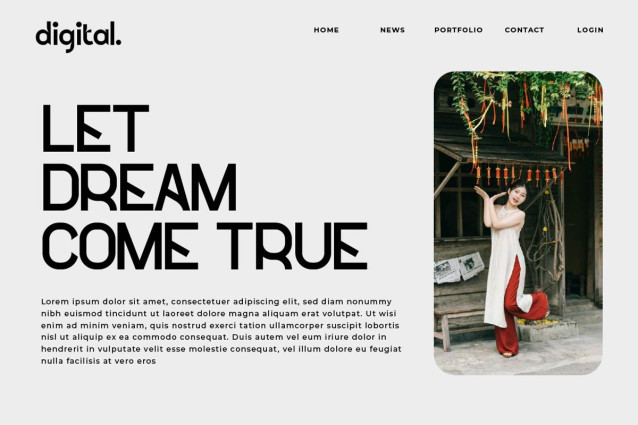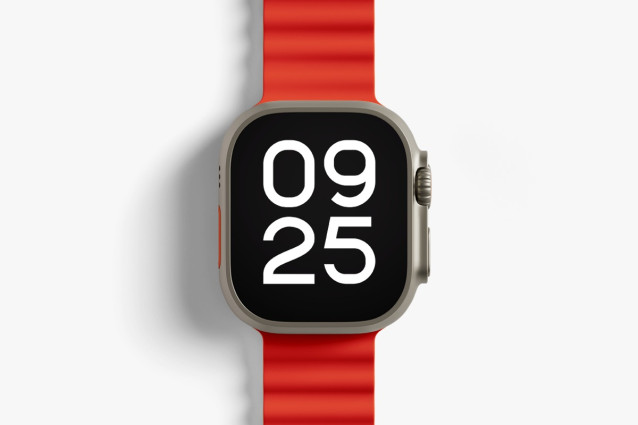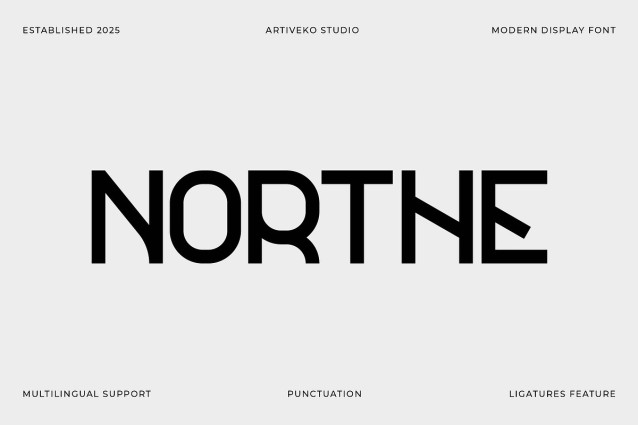
Northe Font
Northe Font is a modern, creative, and clean sans serif typeface crafted for brands that value clarity with a touch of sophistication. Designed with balanced proportions, sleek lines, and soft curves, Northe brings a fresh and contemporary feel to any project—whether it’s a minimalist logo, a bold headline, or a stylish packaging design.
This fonts are great for product logo,wedding card logo, clothing brand logo, Vintage design and much more.